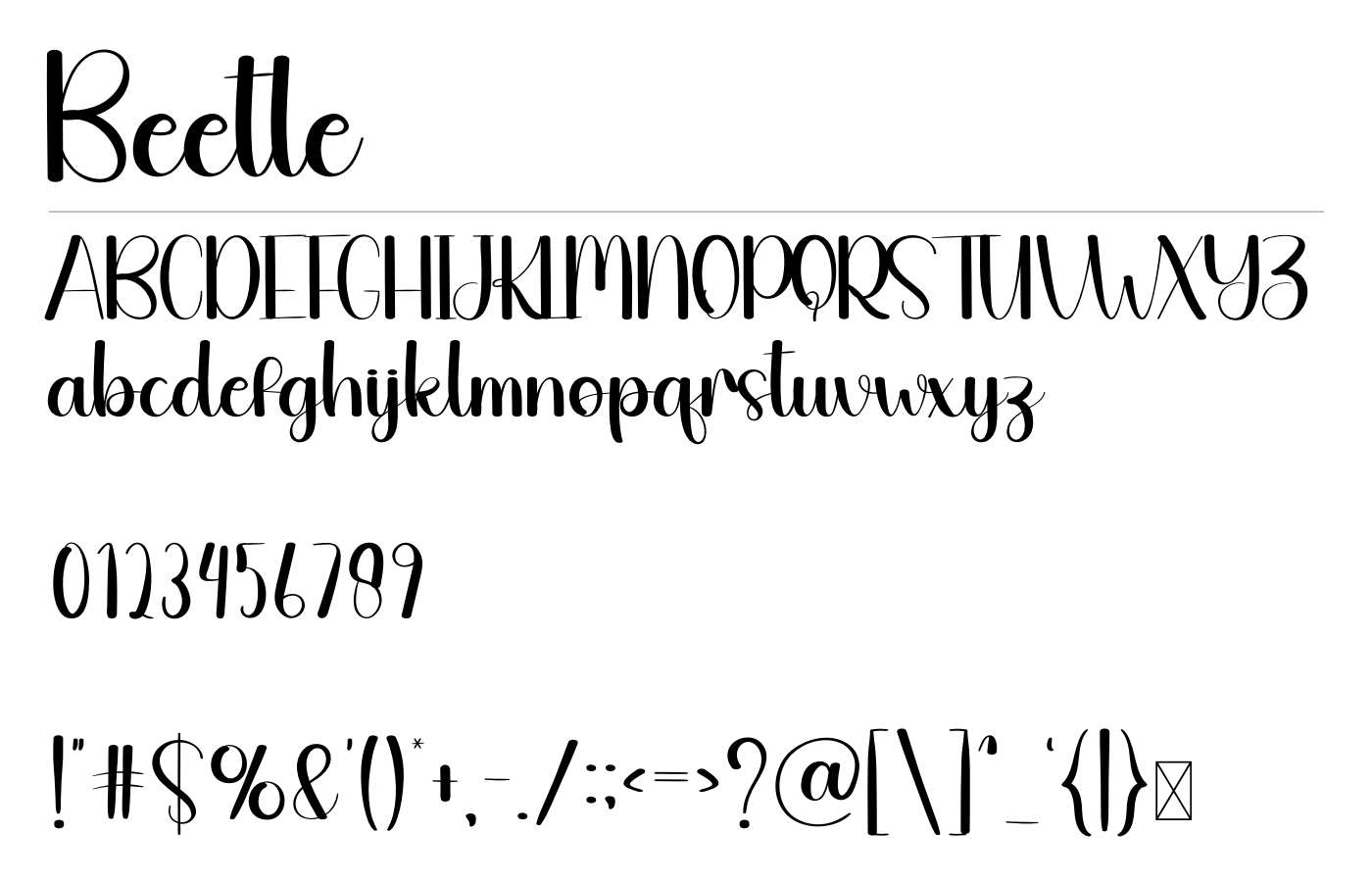
Beetle Font is a playful and elegant script typeface featuring tall, slender letterforms with a mix of thick and fine strokes that create a lively, handwritten feel. Its unique and slightly quirky characters with graceful curves make it ideal for creative projects, branding, invitations, and decorative headlines, where a friendly yet stylish vibe is needed. This font’s versatility shines in any design aiming for a warm, artistic touch that stands out with charm and personality.
Beetle Font
About Beetle Font